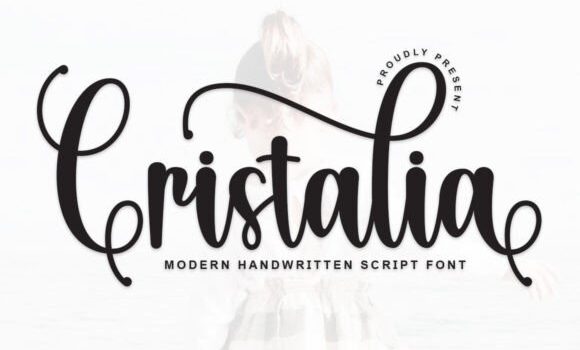
cristalia
Cristalia Font – Free Download Introduction to Cristalia Font Cristalia font feels equally charming and elegant. 📸 Preview Gallery 6 images 📌 Product Name Cristalia Font 👤 Author Creative Design 📂 Category Explore ⬇️ Download Cristalia Font FREE Free Download